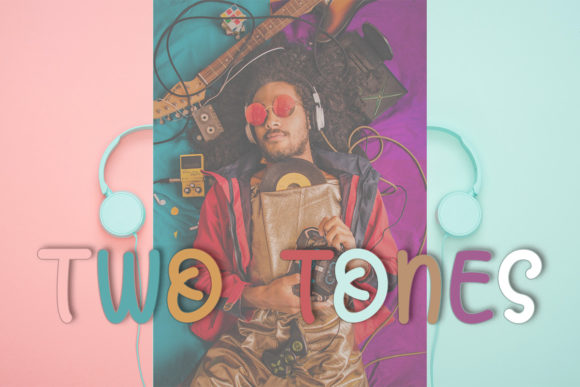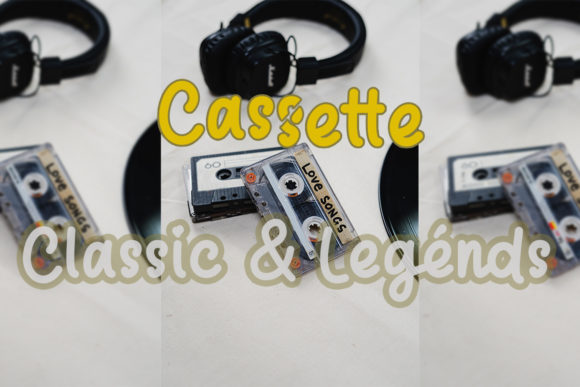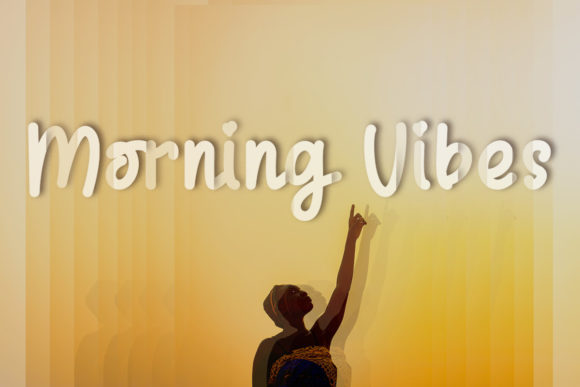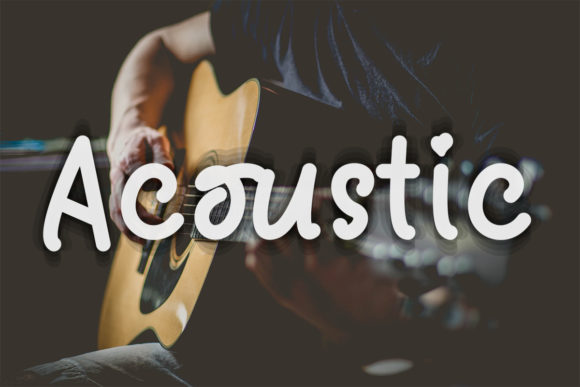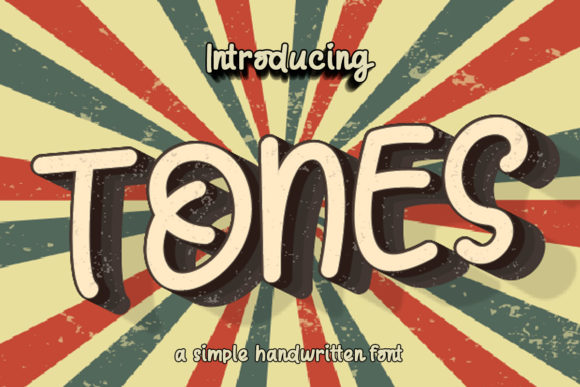
Tones Font
About Tones Font
Tones is a simple, fun, and lovely handwritten font that will surely add a touch of romance to any of your creative projects. This font is great for posters, greeting cards, invitation cards, Valentine’s Day crafts, and many more. Add it to your work, and it will take your designs to the next level!